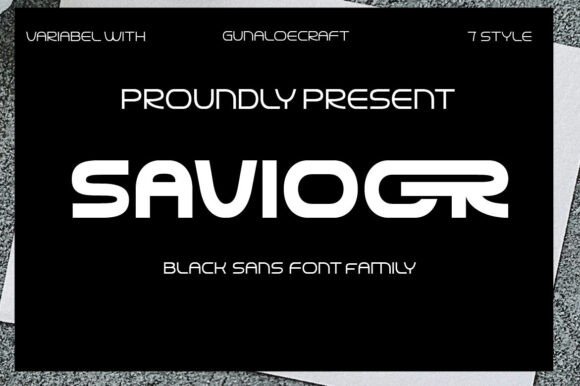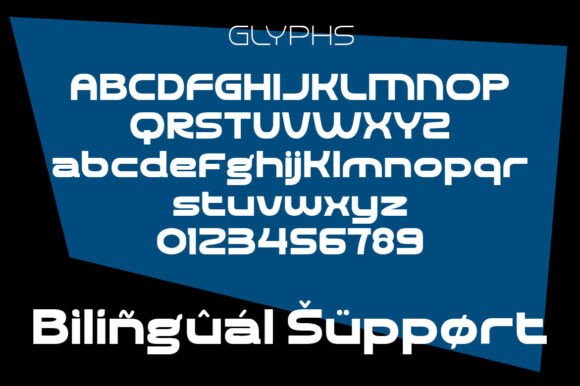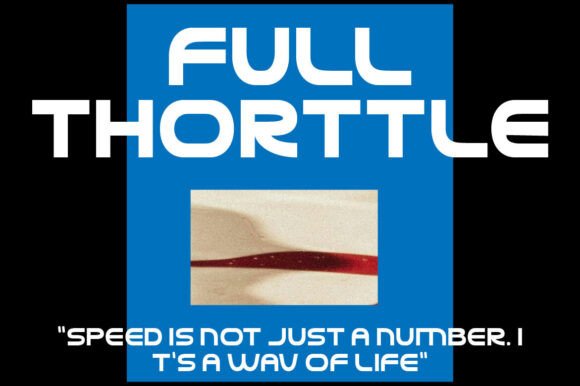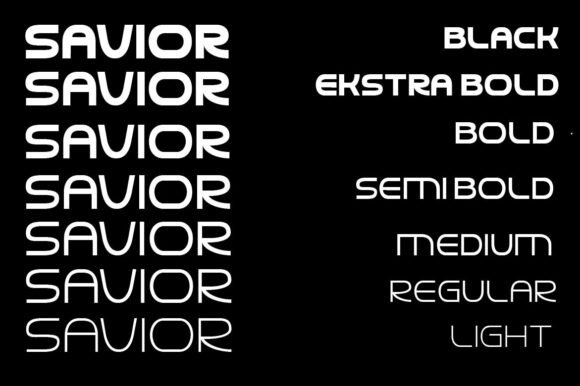
Savior Font: A Modern Sans Serif for Logo Design & Branding
About the Savior Font
We are excited to introduce Savior Font, a must-have typeface for any serious designer. Savior font is a sans serif modern and classic typeface that has its own unique style & modern look. This typeface is perfect for an elegant & luxury logo, book or movie title design, fashion brand, magazine, clothes, lettering, quotes, and so much more.
Savior Font Usage Examples
Savior Font Example